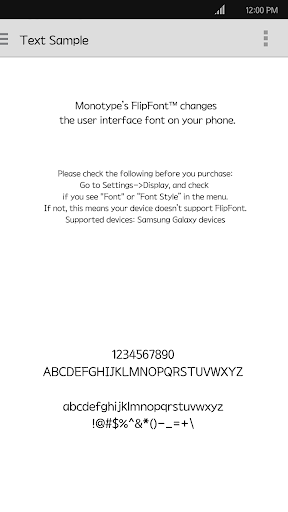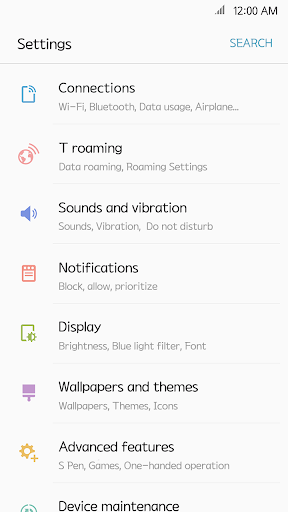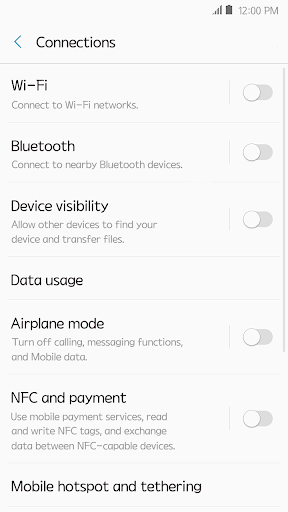
RixFlowerTea™ Latin FlipFont
RixFlowerTea™ typeface is a Ming-style font fitted with warm flower tea. This gives the feeling of stroke written with brush. The bending of beak reminds of petal and goes well with spring image. The line of writing keeps uniform and the thickness is designed not to be thick thinking of legibility.